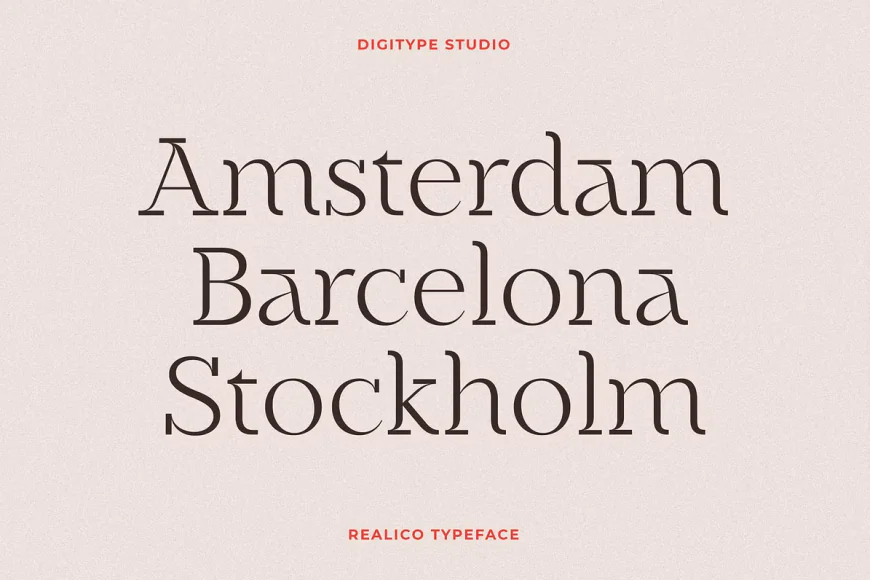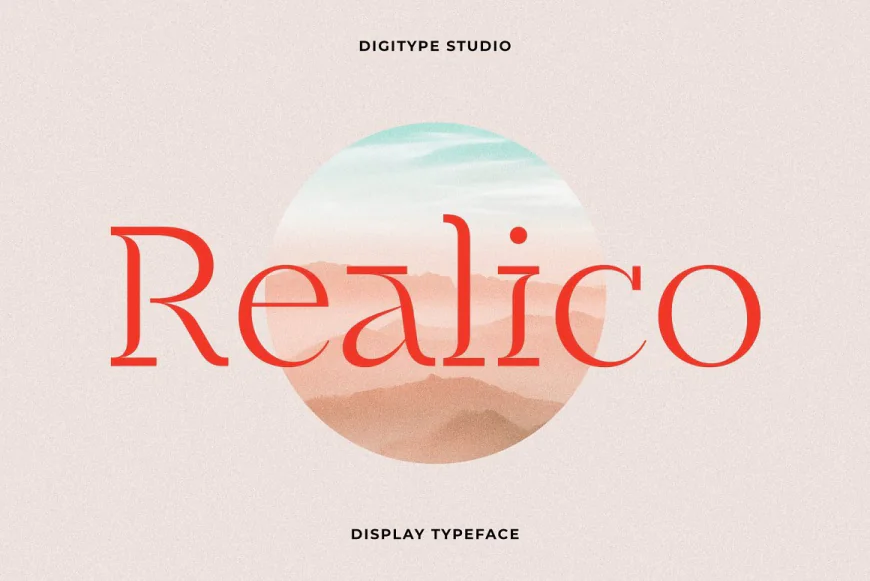
Realico is a meticulously crafted serif display font that adds a distinctive touch to your text. It is ideal for titles, logos, and formal designs such as t-shirts, labels, magazines, books, greeting cards, packaging, fashion, makeup, stationery, novels, and various advertising purposes.